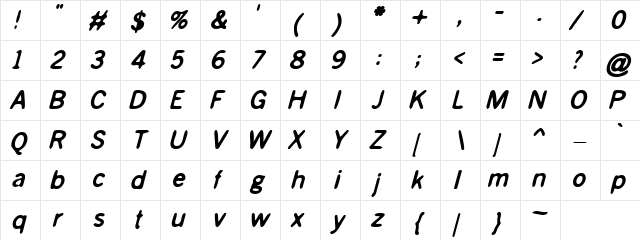
Sleeping Sister Regular
Design Context for Sleeping Sister Typeface
Sleeping Sister takes a measured approach to typography — its balanced proportions and neutral character make it a reliable workhorse for both digital and print work.